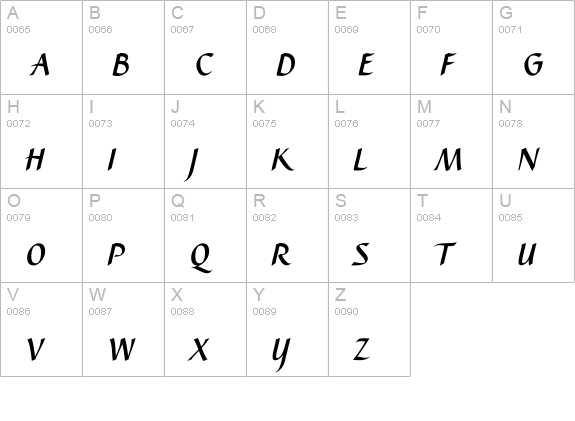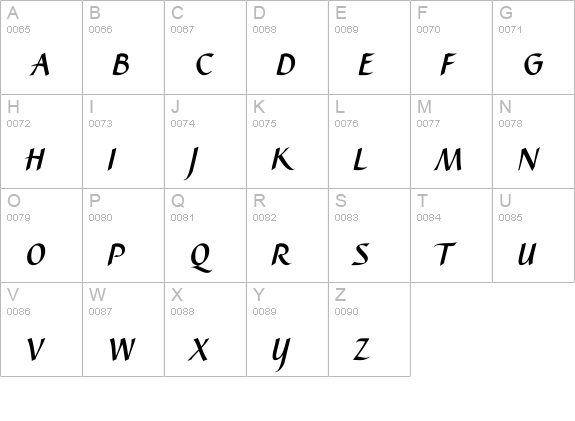
Caterina Bold Italic Font Details
Caterina Bold Italic is a strong, high-contrast, italic variant in the Caterina typeface family \xE2\x80\x94 well suited to headlines, attention-grabbing titles, and strong calls-to-action.
The Caterina Bold Italic font exudes elegance and sophistication with its sleek, modern design and striking bold italic style. This font is perfect for adding a touch of luxury to any project, whether it be a logo, branding materials, invitations, or editorial design. What sets Caterina Bold Italic apart is its seamless blend of boldness and elegance, making it a versatile choice for both display and text use. The precise curves and sharp angles of this font give it a unique and eye-catching appeal that is sure to make a statement. And the best part? Caterina Bold Italic is available for free download at FontsMarket.com. Whether you're a seasoned designer looking to add a new font to your collection or a beginner exploring typography for the first time, this font is a must-have addition to your toolkit. Download Caterina Bold Italic today and elevate your designs with its bold and sophisticated charm.